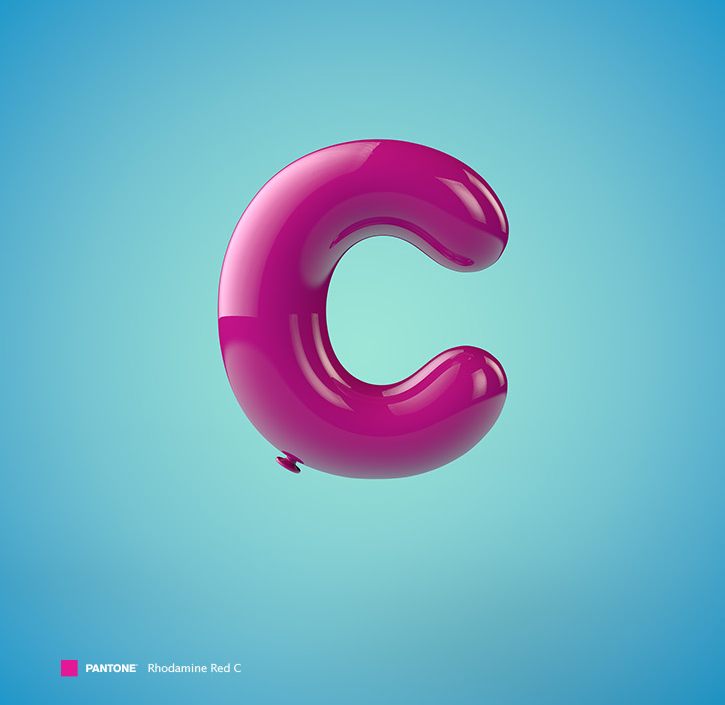
This Ballon font was created for a children's campaign to encourage hope and a better future. Colours and the alphabet play an important part of a child's foundation in education.